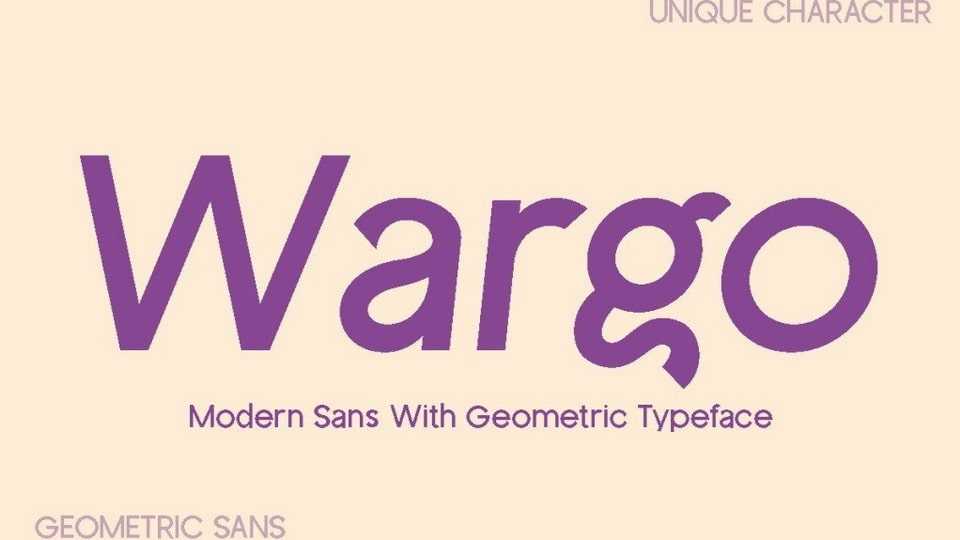
Download Wargo font, a geometric sans serif typeface with soft, charming rounded edges and curves, a typeface with unique characters for a touch of distinction.